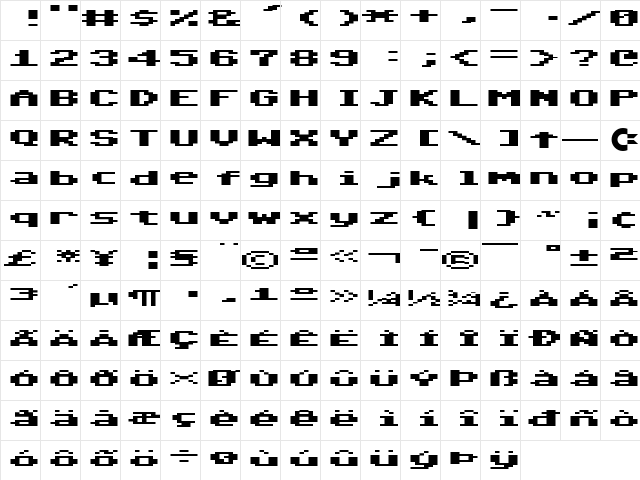
CBM-64 20 Column Normal
Design Context for CBM-64 20 Column Typeface
CBM-64 20 Column takes a measured approach to typography — its balanced proportions and neutral character make it a reliable workhorse for both digital and print work.
Pro Tip: Use CBM-64 20 Column in both headline and body roles to test its range before committing to a single application.